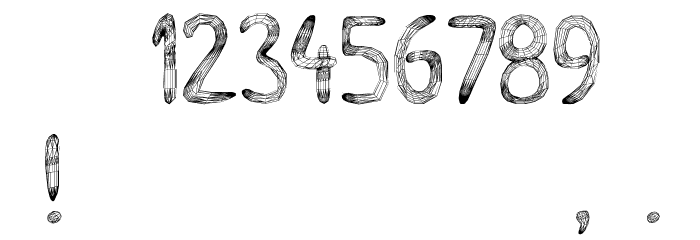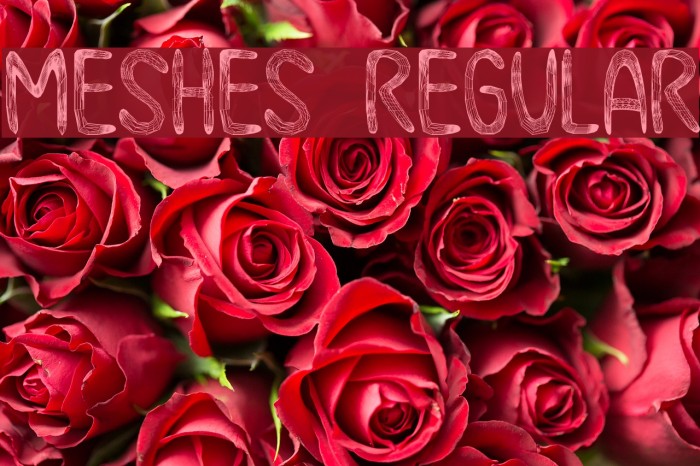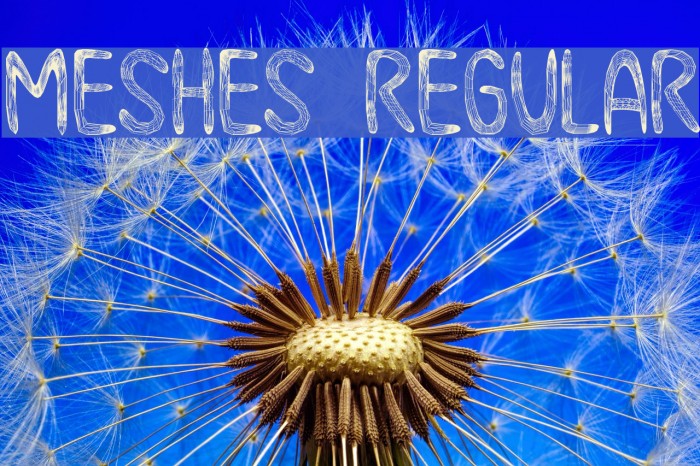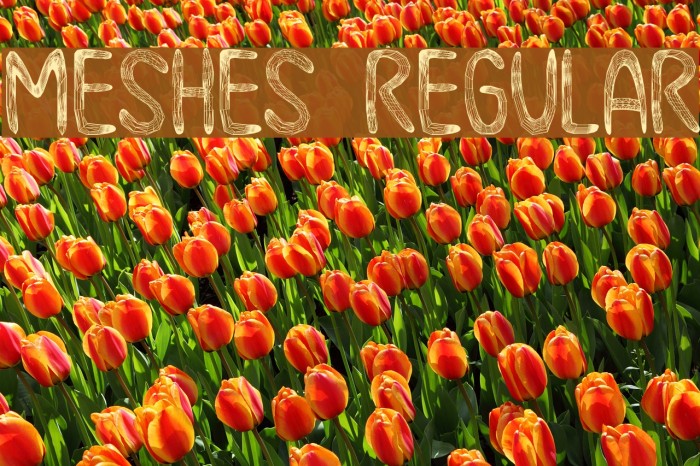
Meshes Regular Font
This font features a unique, hand-drawn style with intricate mesh-like patterns filling each character. The letters are uppercase and lowercase, with numerals and a few special characters. Each character has a distinct, artistic appearance, making it stand out with its textured, sketch-like design. The strokes are consistent in width, giving it a cohesive look, while the mesh pattern adds depth and complexity. This font is ideal for creative projects where a distinctive, artistic touch is desired.
A hand-drawn, mesh-patterned font with artistic flair.
- Proposed Projects: Ideal for artistic posters, creative branding, unique invitations, and decorative headings.
- Overall Style: Artistic, Decorative